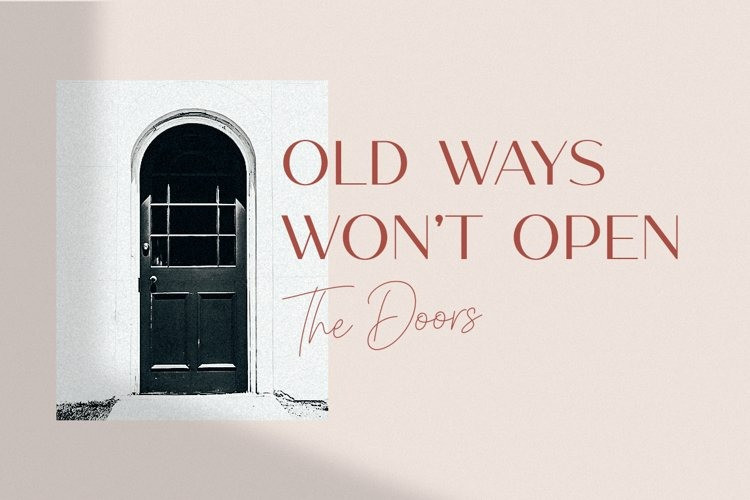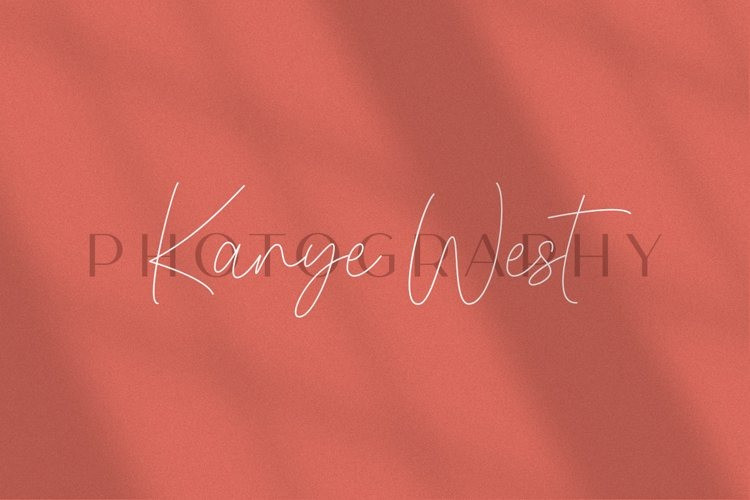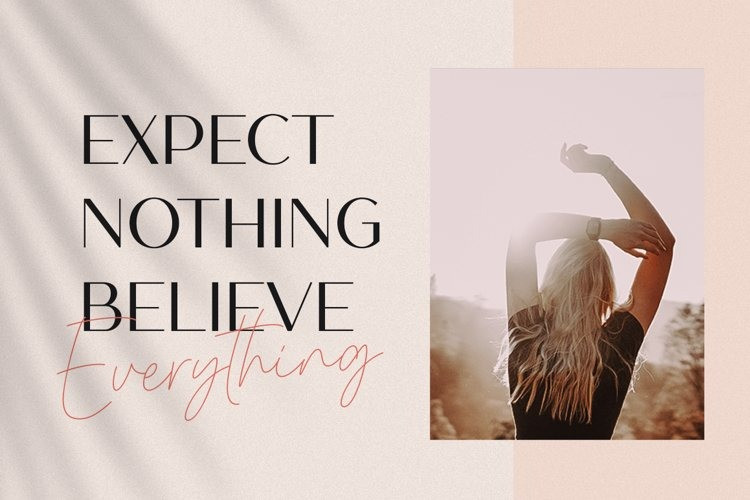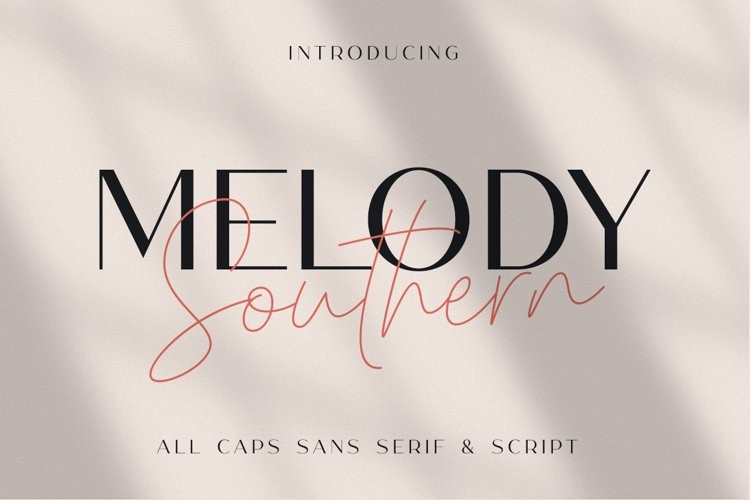
Melody Southern Font Duo
Melody Southern Font is a luxury and elegant typeface pair that will bring a unique style and a trendy look to your designs. It’s designed and shared by Suby Studio. A luxury font duo with combination elegant all caps sans serif and classy handwritten script font that perfect for logos, magazine, social media and more.